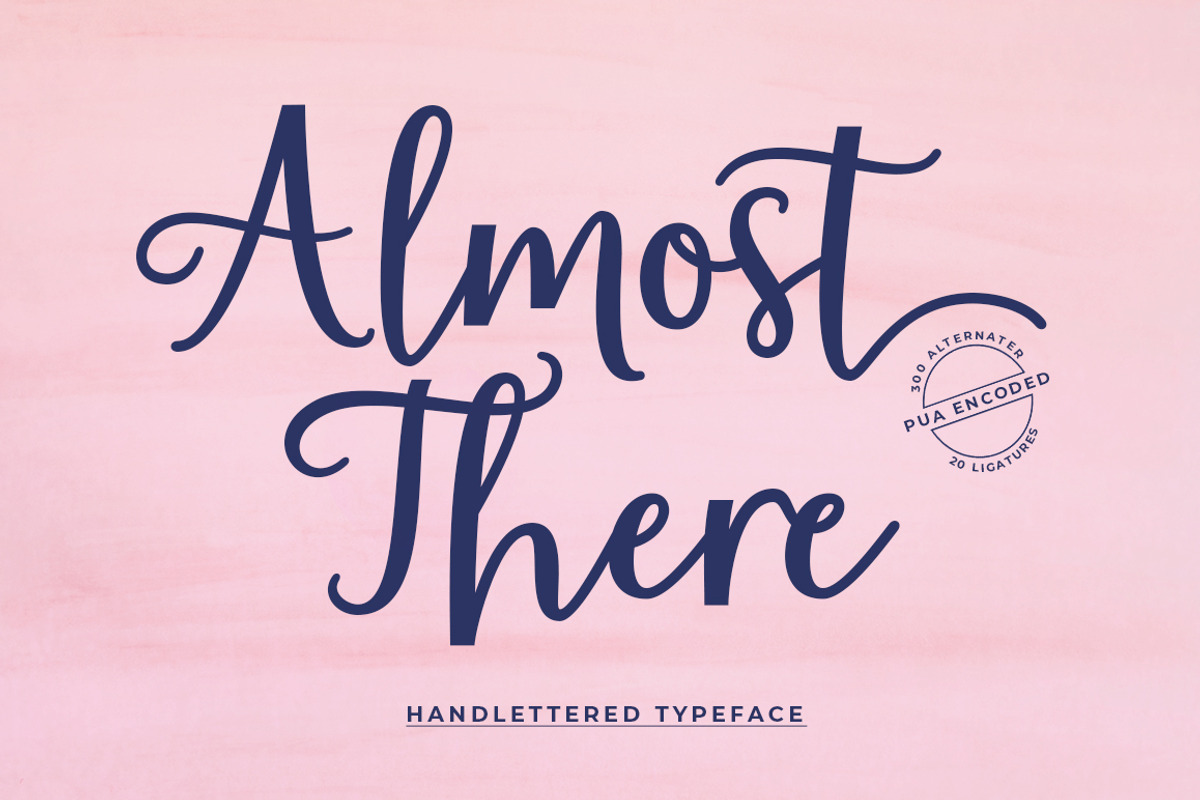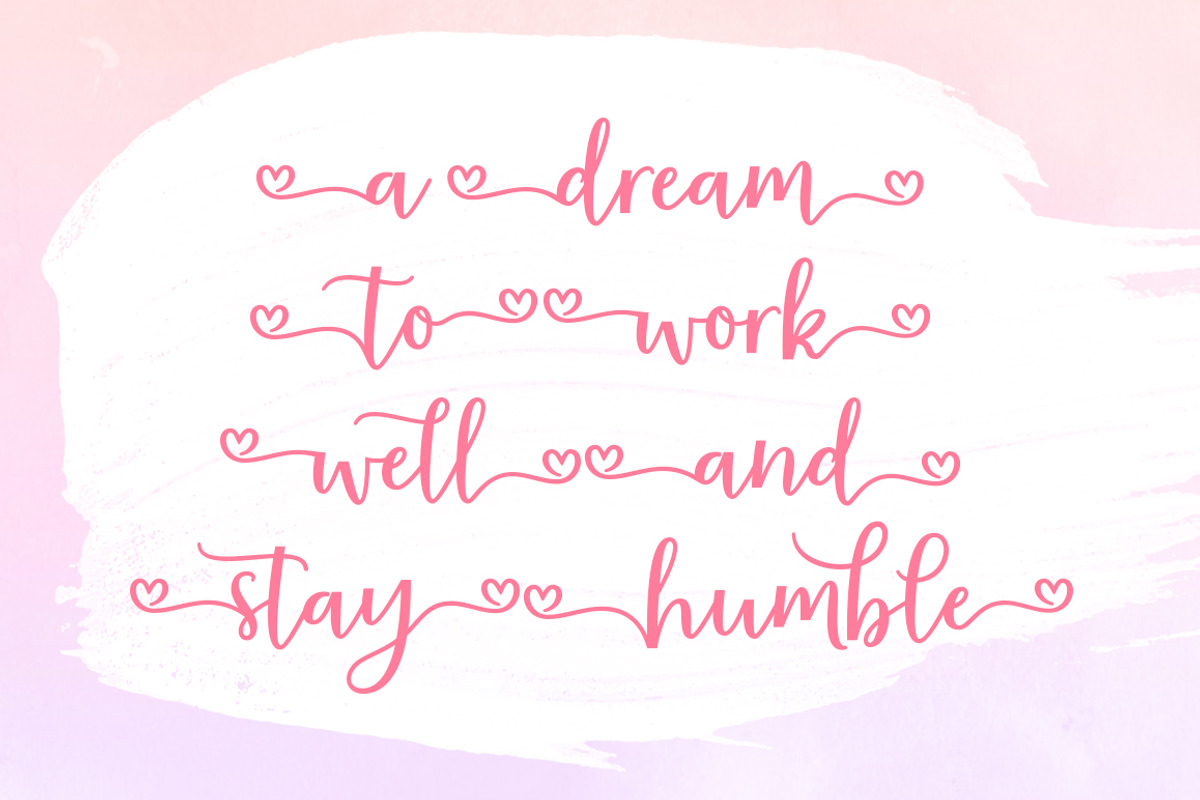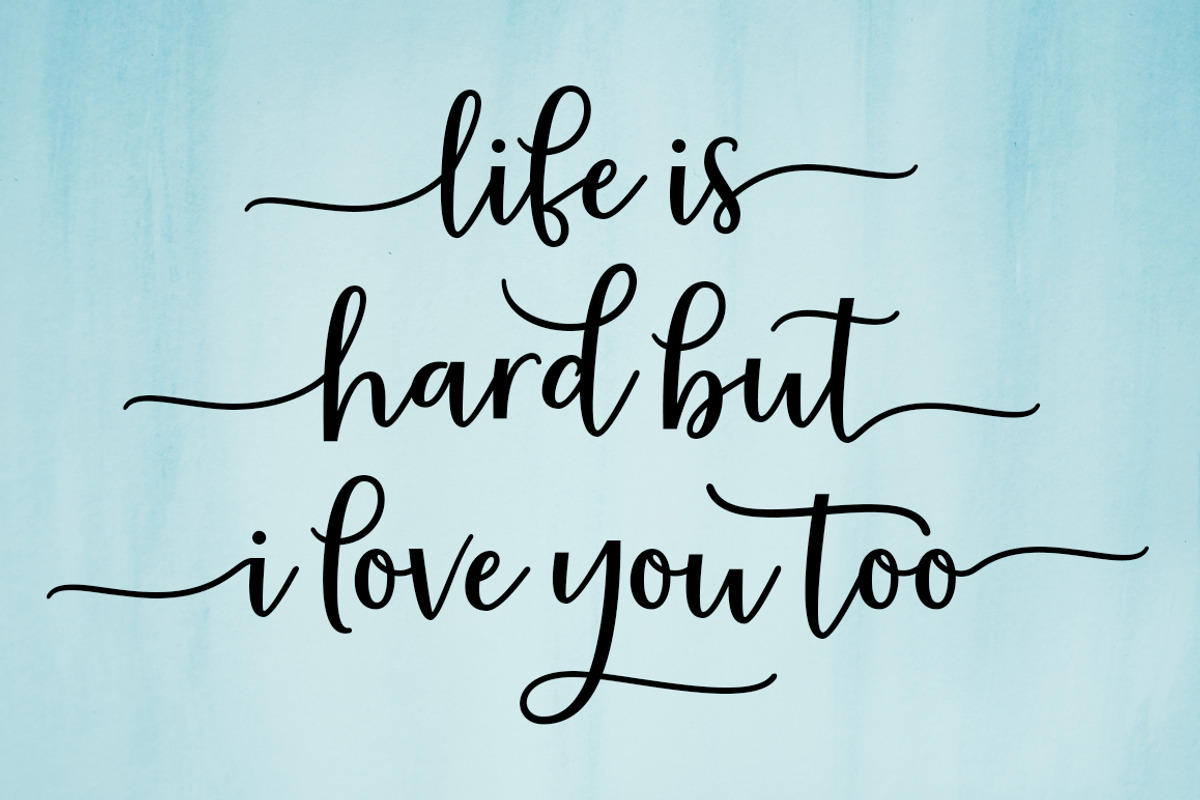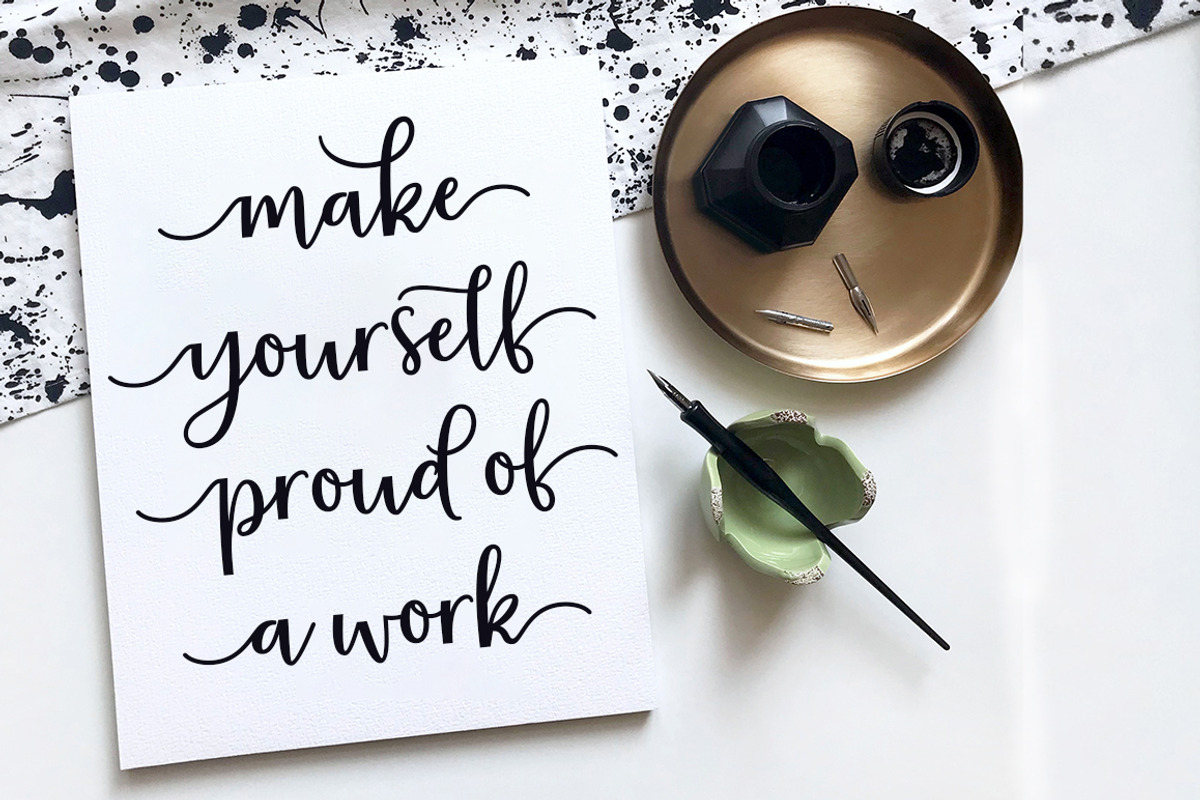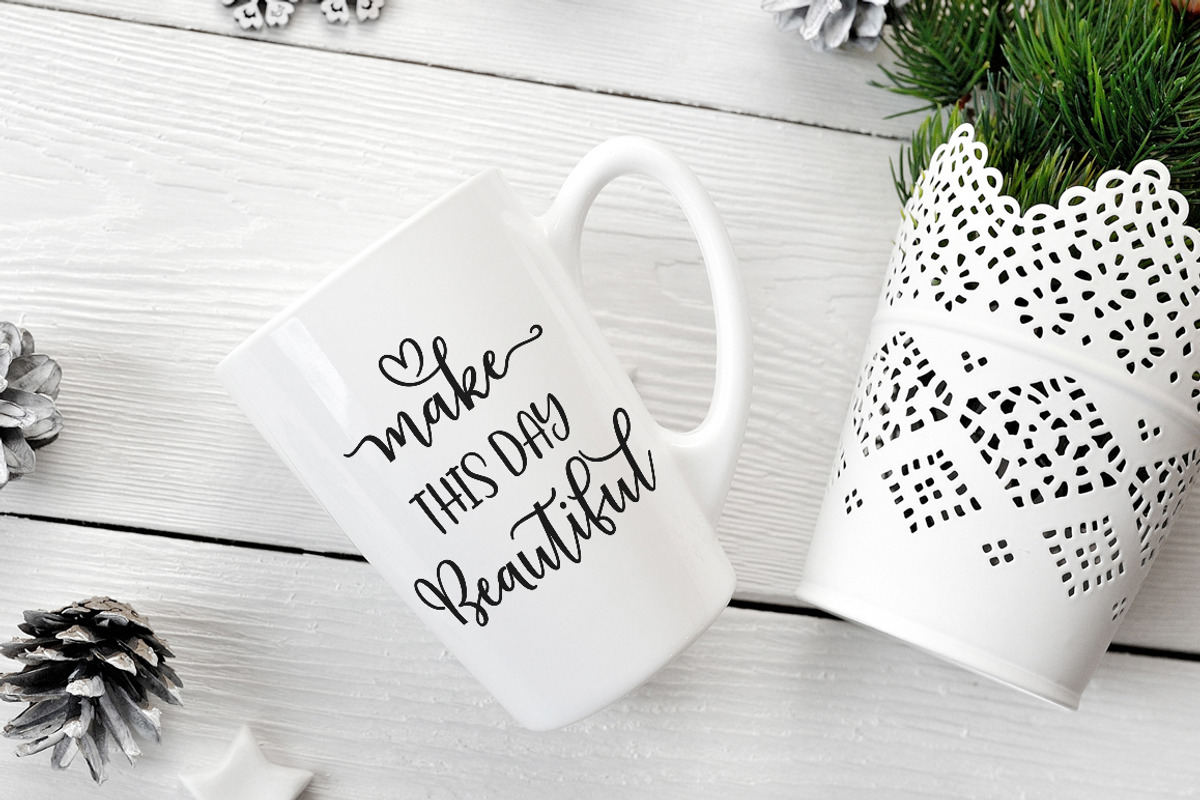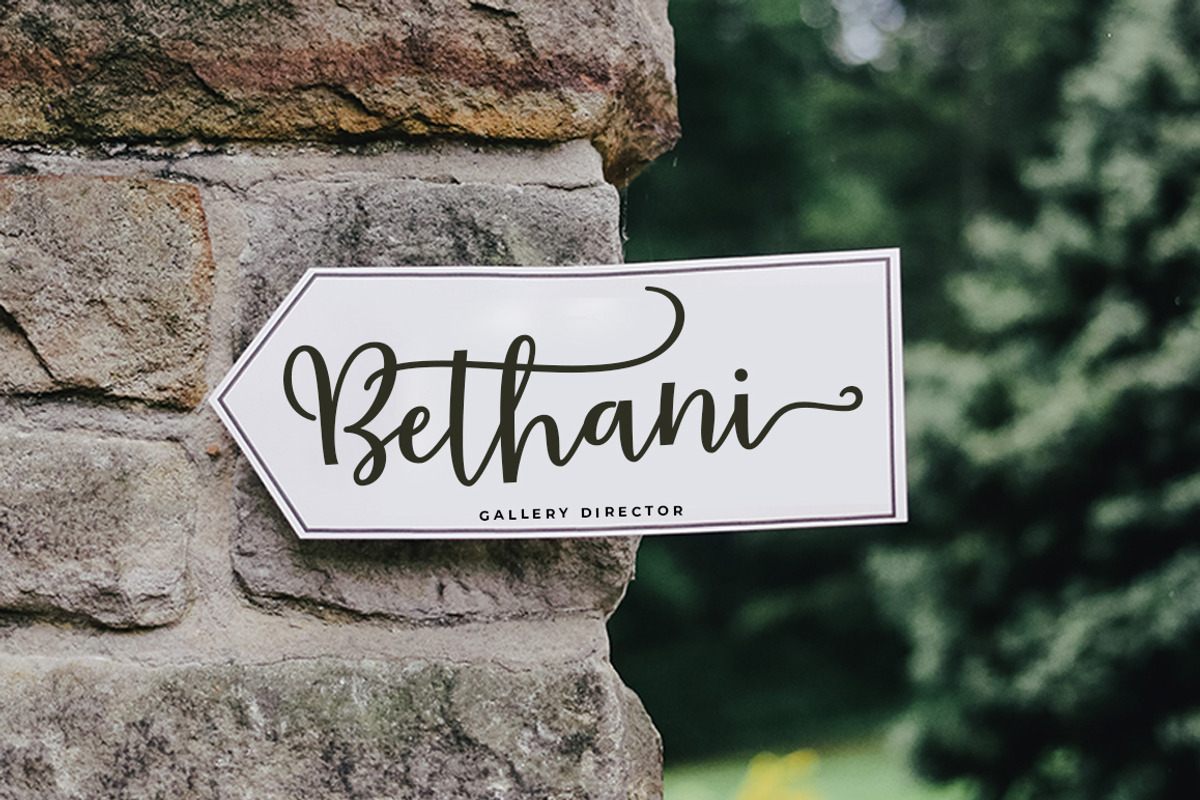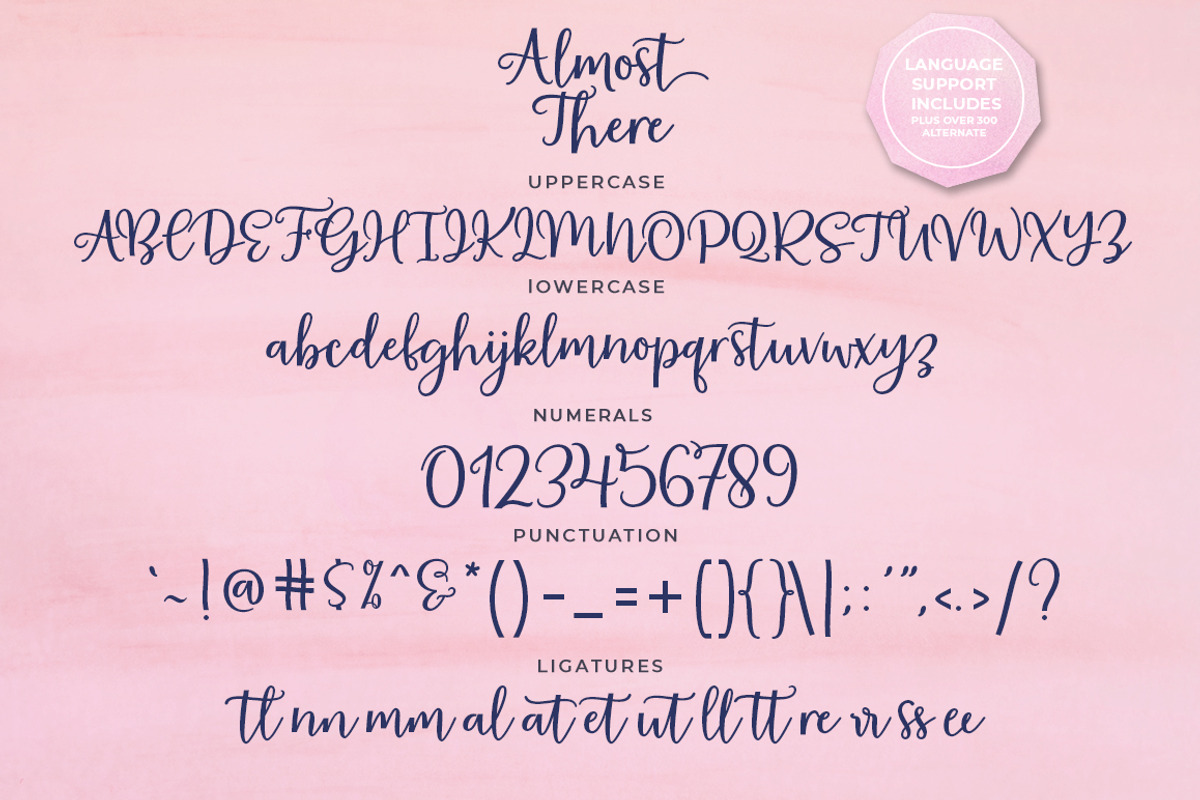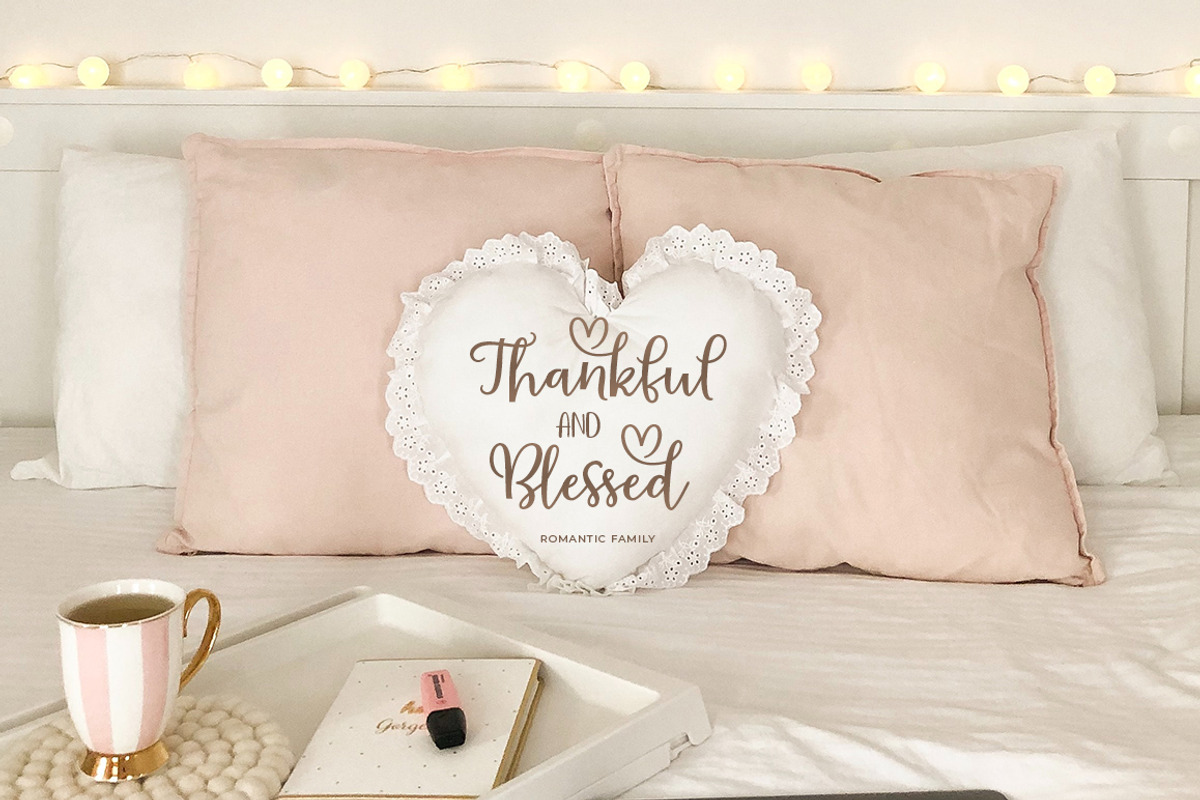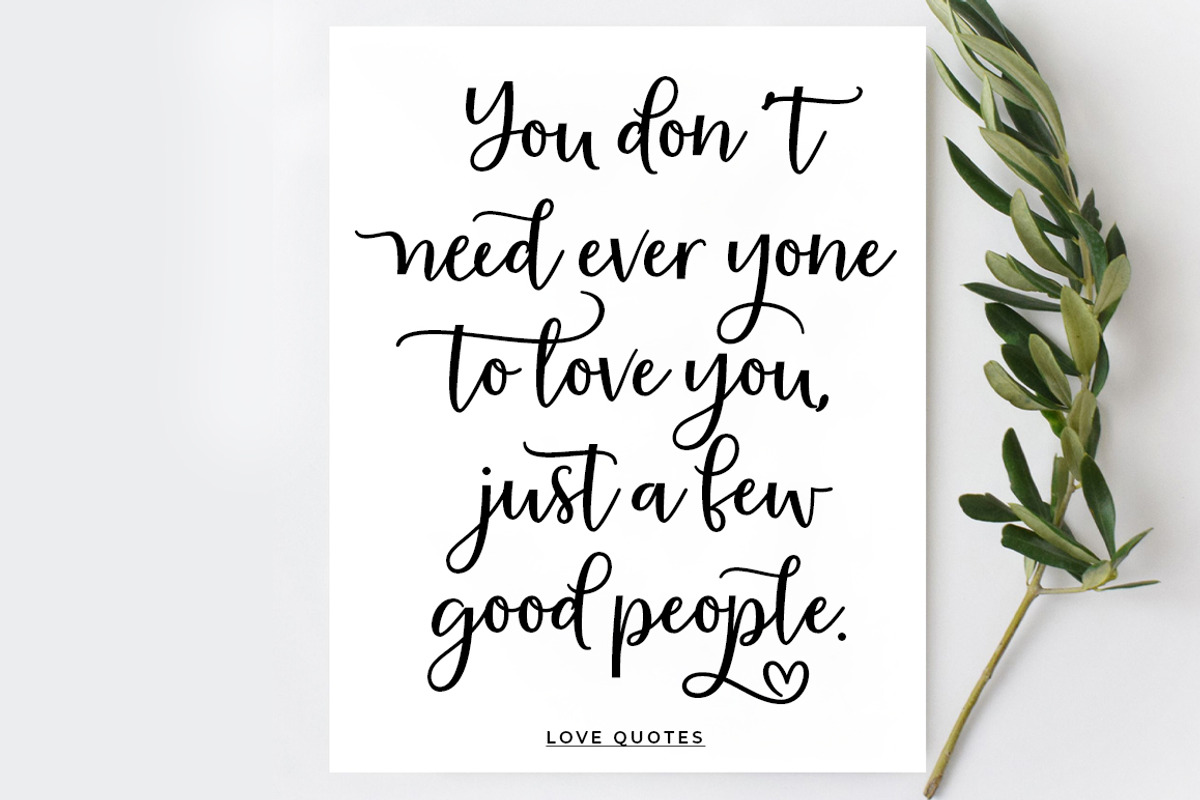
Almost There
Almost There Script - new, fresh, funny, interesting, cute calligraphy font with a heart that can be linked. It is suitable for greeting cards, branding materials, business cards, quotes, posters, and more!
Almost There Scripts - including many alternative characters. Coded with Unicode PUA, which allows full access to all additional characters without having special design software. Mac users can use Font Book. Windows users can use the Character Map to view and copy one of the additional characters to paste into your favorite text editor. For people who have opentype-capable software: Alternatives can be accessed by turning on the "Alternative Style" and "Ligature" buttons on the Photoshop Characters panel, or through any software with glyph panels, e.g. Adobe Illustrator, Photoshop CC, Inkscape.